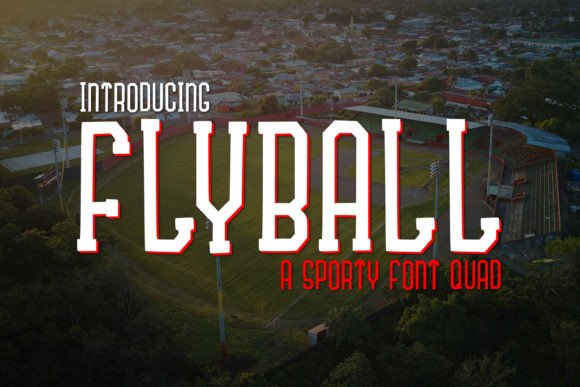
Introducing Fly Ball Font: The Ultimate Typeface for Energetic Designs
In the world of typography, few fonts capture the essence of athleticism and nostalgia as perfectly as Fly Ball Font. This bold, sporty typeface is designed to bring a punch of energy and a vintage flair to any design project. Whether you’re creating a team logo, promoting a sports event, or simply looking for a font that exudes an athletic spirit, Fly Ball is the perfect choice.
Key Features of Fly Ball Font
- Bold and Blocky Letters: Fly Ball’s strong, blocky letters are designed to make a statement. Their bold presence ensures that your text stands out, making it perfect for headlines, titles, and logos.
- Retro Styling: The font’s retro aesthetic adds a nostalgic touch to your designs. This makes Fly Ball ideal for both modern projects that require a vintage twist and throwback designs that aim to evoke a sense of nostalgia.
- Athletic Spirit: With its baseball-inspired design, Fly Ball is perfect for any project that needs to convey an athletic or sports-related theme. From team logos to sports event promotions, this font delivers the desired aesthetic.
- Versatility: Fly Ball is not just limited to sports-related designs. Its bold and energetic style makes it suitable for a wide range of projects, including posters, titles, and more.
Perfect Use Cases for Fly Ball Font
Fly Ball Font is incredibly versatile, making it suitable for various design projects. Here are some perfect use cases for this energetic typeface:
- Team Logos: Create a lasting impression with a bold and athletic team logo that stands out.
- Sports Events: Promote sports events, tournaments, or matches with eye-catching posters and flyers.
- Posters and Flyers: Add a punch of energy to your posters and flyers with Fly Ball’s bold and blocky letters.
- Headlines and Titles: Use Fly Ball to create attention-grabbing headlines and titles for your designs.
- Social Media Graphics: Elevate your social media graphics with a font that exudes athleticism and energy.
Design Tips for Using Fly Ball Font
To get the most out of Fly Ball Font, consider the following design tips:
- Pair with Contrasting Fonts: Combine Fly Ball with contrasting fonts to create visual interest and hierarchy in your designs.
- Use Bold Colors: Fly Ball’s bold style pairs well with bright and bold colors. Experiment with vibrant color schemes to enhance your designs.
- Experiment with Textures: Add depth to your designs by incorporating textures that complement Fly Ball’s retro aesthetic.
- Keep it Simple: Don’t overcomplicate your design. Fly Ball’s bold style is enough to make a statement. Keep your design clean and focused.
The Benefits of Using Fly Ball Font
Fly Ball Font offers several benefits that make it an excellent choice for designers:
- Unique Style: Fly Ball’s retro aesthetic and bold style set it apart from other fonts, ensuring your designs stand out.
- Easy to Read: Despite its bold style, Fly Ball is easy to read, making it perfect for headlines and titles.
- Customizable: Experiment with different colors, textures, and design elements to make Fly Ball your own.
- Time-Saving: With Fly Ball, you can create professional-looking designs in no time. Its bold style and energetic aesthetic save you time and effort.
In conclusion, Fly Ball Font is a versatile and energetic typeface perfect for creating bold and athletic designs. Its retro aesthetic, bold style, and blocky letters make it ideal for team logos, sports events, posters, and more. With its easy-to-read design and customizable features, Fly Ball is an excellent choice for designers looking to add a punch of athletic spirit to their projects.